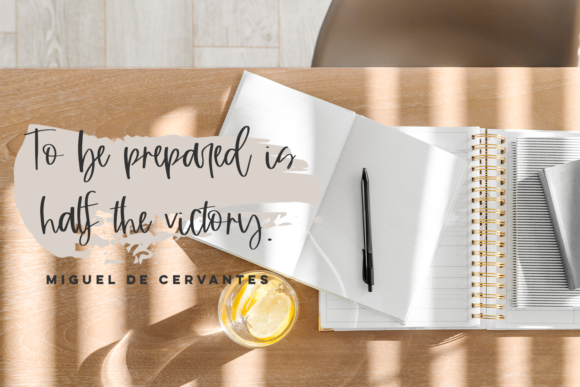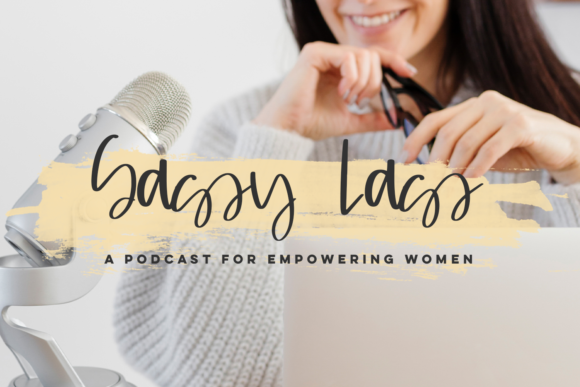
Blindside Script Font
db-ku.com - Script & Handwritten -- Meet Blindside, a handwritten script font. Blindside is bouncy & irregular, giving it an edgy, modern look.